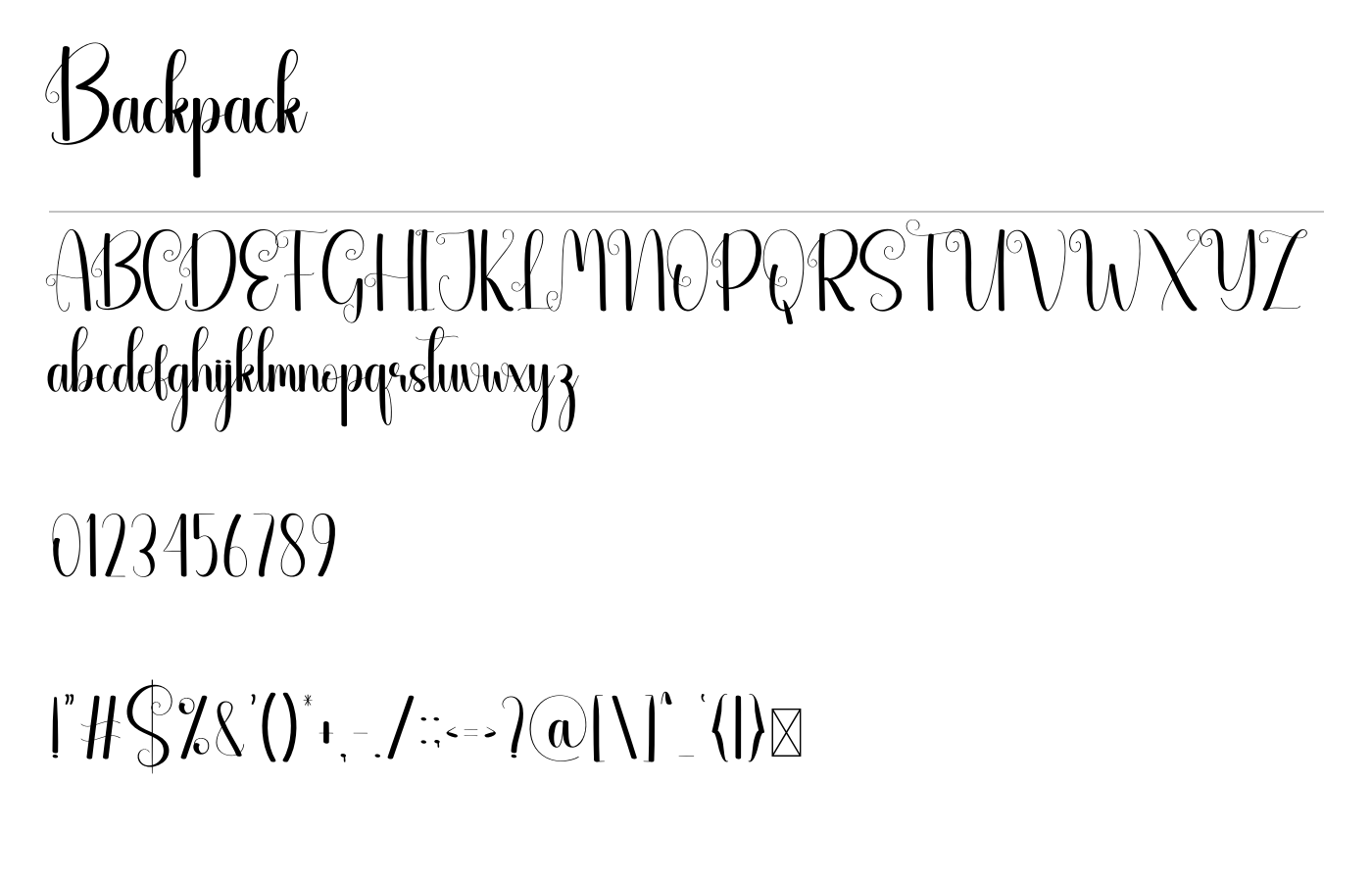
Backpack Font is a delicate, decorative script with tall, slender letterforms and elegant, whimsical swirls that give it a playful yet refined look. Its high contrast between thick and thin strokes and unique flourish details make it ideal for creative branding, invitations, or expressive headlines where a touch of charm and personality is desired. This font works best in display settings, adding an artistic flair to fashion, lifestyle, and boutique projects.
Backpack Font